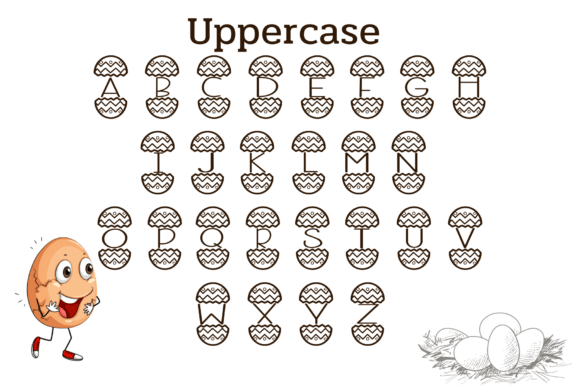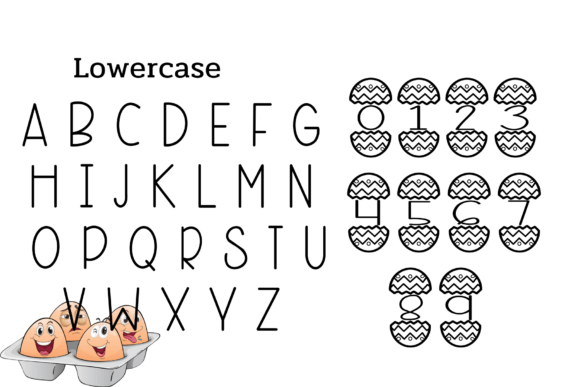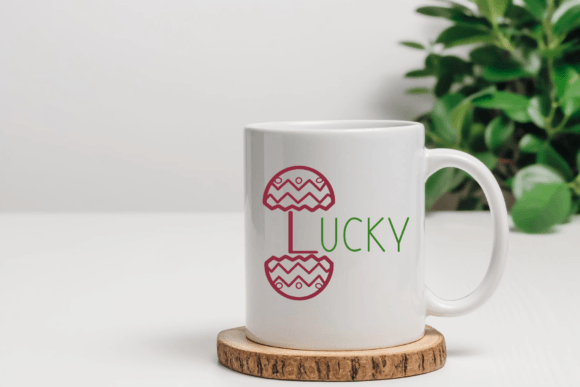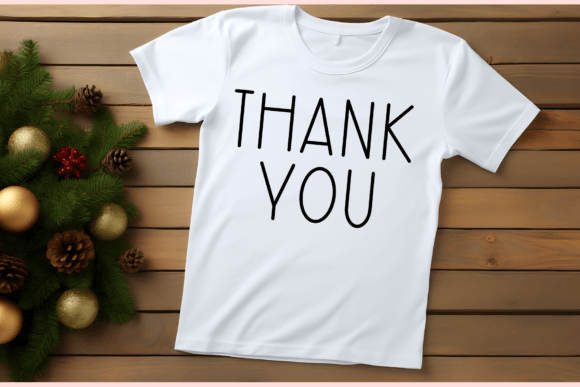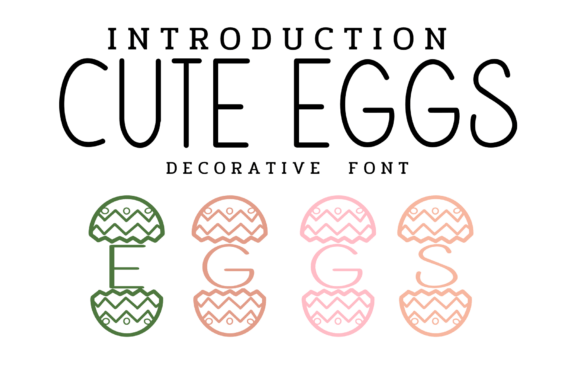
Cute Eggs Font: The Perfect Addition to Your Design Arsenal
Are you a designer, crafter, or DIY enthusiast looking for a unique and playful font to add some personality to your projects? Look no further than Cute Eggs Font! This decorative font is perfect for taking notes, writing a diary, or making greeting cards, and its versatility makes it suitable for a wide range of design applications.
What is Cute Eggs Font?
Cute Eggs Font is a delightful, hand-crafted typeface that features adorable egg-shaped characters. Its whimsical design is sure to bring a smile to your face and add a touch of playfulness to any project. The font is carefully crafted to be both visually appealing and highly legible, making it perfect for a variety of uses.
Uses for Cute Eggs Font
While Cute Eggs Font is perfect for taking notes, writing a diary, or making greeting cards, its uses don’t stop there. You can use it to create a wide range of designs, including:
• Banners: Add a playful touch to your banners with Cute Eggs Font. Use it to create eye-catching titles, headings, or even entire phrases.
• Content: Use Cute Eggs Font to add some personality to your blog posts, articles, or social media content. It’s a great way to add a touch of whimsy and make your content stand out.
• Mugs: Create adorable mugs with Cute Eggs Font. Perfect for gifts or personal use, these mugs are sure to bring a smile to anyone’s face.
• Cards: Make one-of-a-kind greeting cards with Cute Eggs Font. Whether it’s a birthday, holiday, or just because, these cards are sure to be treasured.
• Shirts: Add some fun and personality to your t-shirts, hoodies, or other apparel with Cute Eggs Font. Perfect for kids and adults alike!
• Stationery: Create custom stationery with Cute Eggs Font, including notebooks, journals, and more.
• Social Media Posts: Use Cute Eggs Font to add some flair to your social media posts. Perfect for Instagram, Facebook, Twitter, and more!
Why Choose Cute Eggs Font?
So why choose Cute Eggs Font for your design projects? Here are just a few reasons:
• Unique and Playful: Cute Eggs Font is a one-of-a-kind typeface that’s sure to add some personality to your designs.
• Highly Legible: Despite its playful design, Cute Eggs Font is highly legible, making it perfect for a wide range of uses.
• Versatile: Cute Eggs Font can be used for a wide range of design applications, from banners and content to mugs and cards.
Tips for Using Cute Eggs Font
Here are a few tips for getting the most out of Cute Eggs Font:
• Experiment with Colors: Cute Eggs Font looks great in a variety of colors, so don’t be afraid to experiment and find the perfect hue for your design.
• Mix and Match: Try pairing Cute Eggs Font with other fonts or design elements to create a unique and eye-catching look.
• Keep it Simple: Don’t be afraid to keep things simple with Cute Eggs Font. Sometimes, less is more, and a simple design can be just as effective as a more complex one.
Cute Eggs Font is a delightful and versatile typeface that’s perfect for designers, crafters, and DIY enthusiasts. Its unique and playful design makes it suitable for a wide range of design applications, from banners and content to mugs and cards. With its high legibility and ease of use, Cute Eggs Font is a great addition to any design arsenal. So why not give it a try and see what amazing designs you can create?